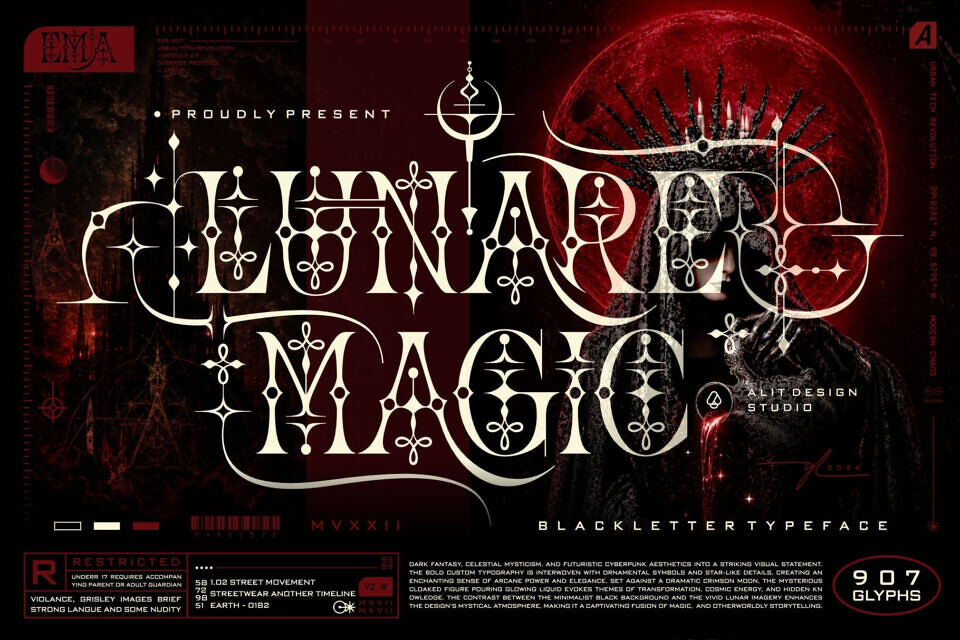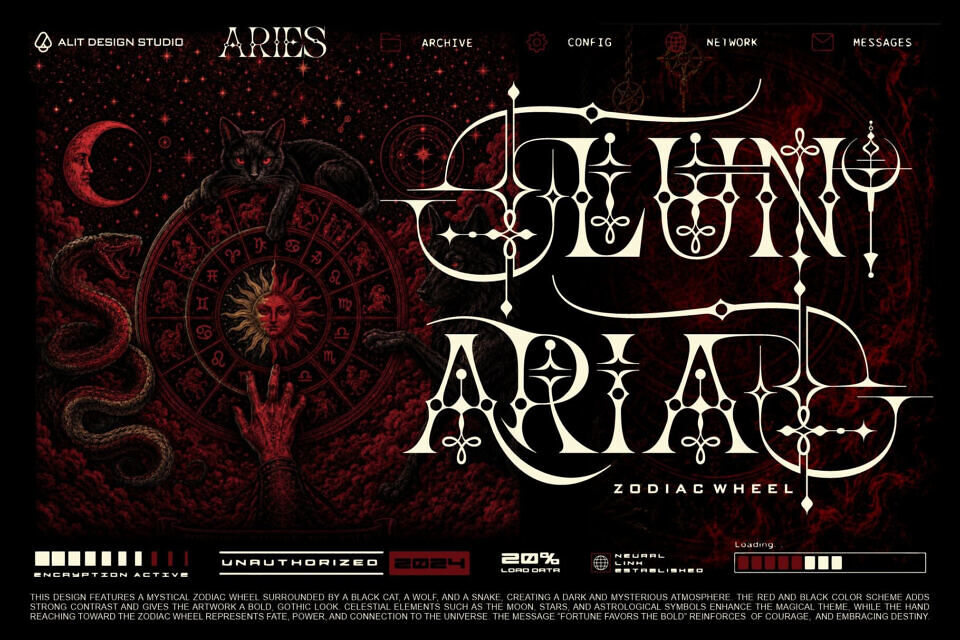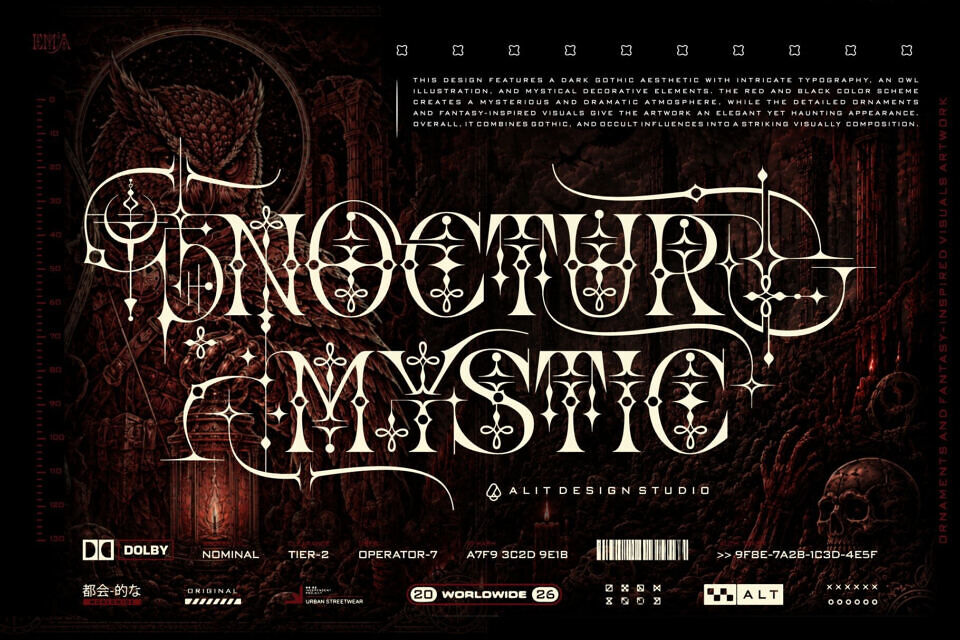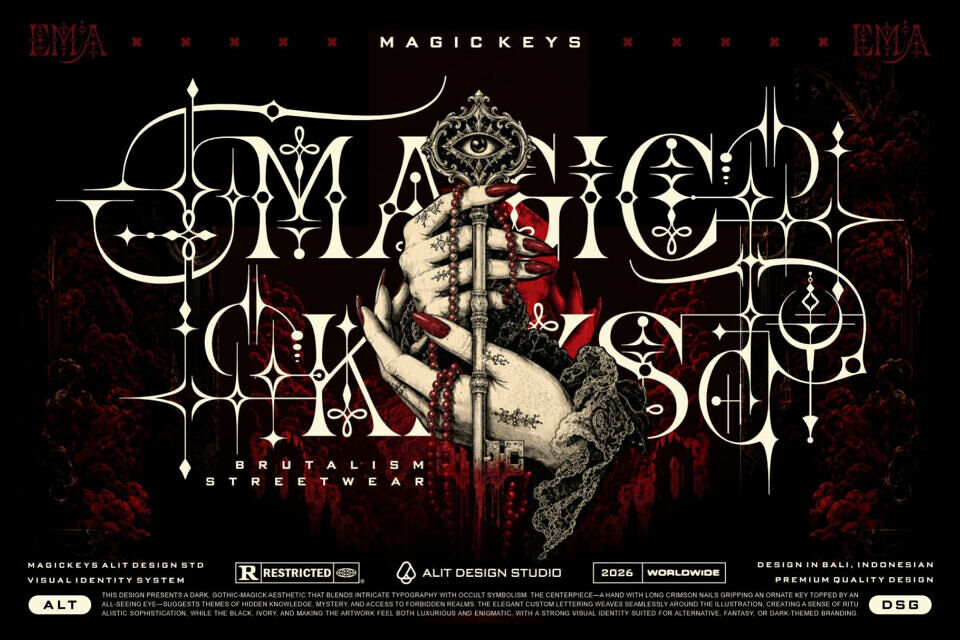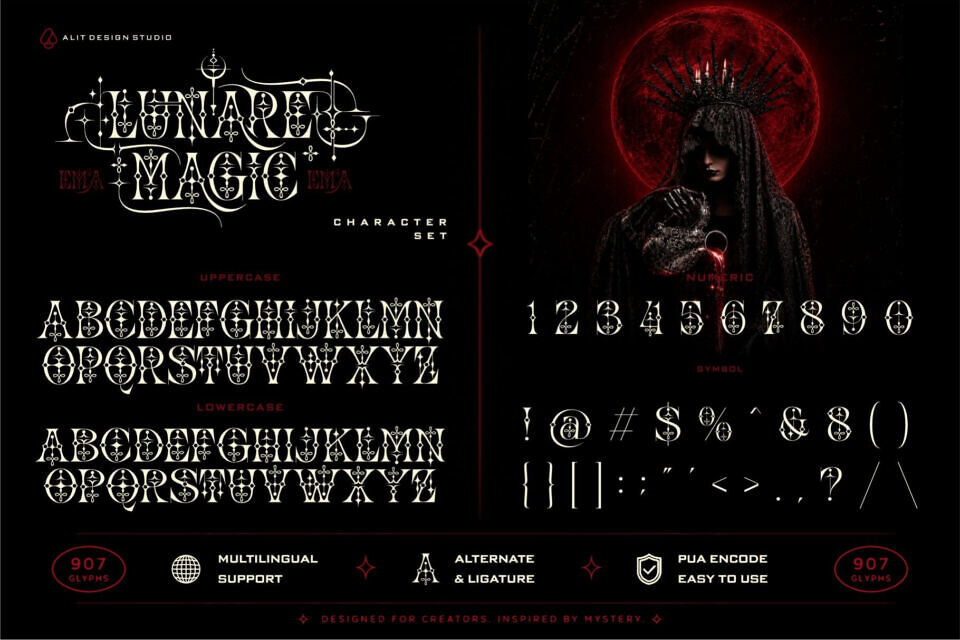
Unveil the arcane power and elegance of Lunare Magic, a striking blackletter typeface designed to captivate and command attention. Whether you are designing for brutalism streetwear, dark horror concepts, occult-themed branding, or striking music merchandise, Lunare Magic provides the perfect atmospheric foundation.